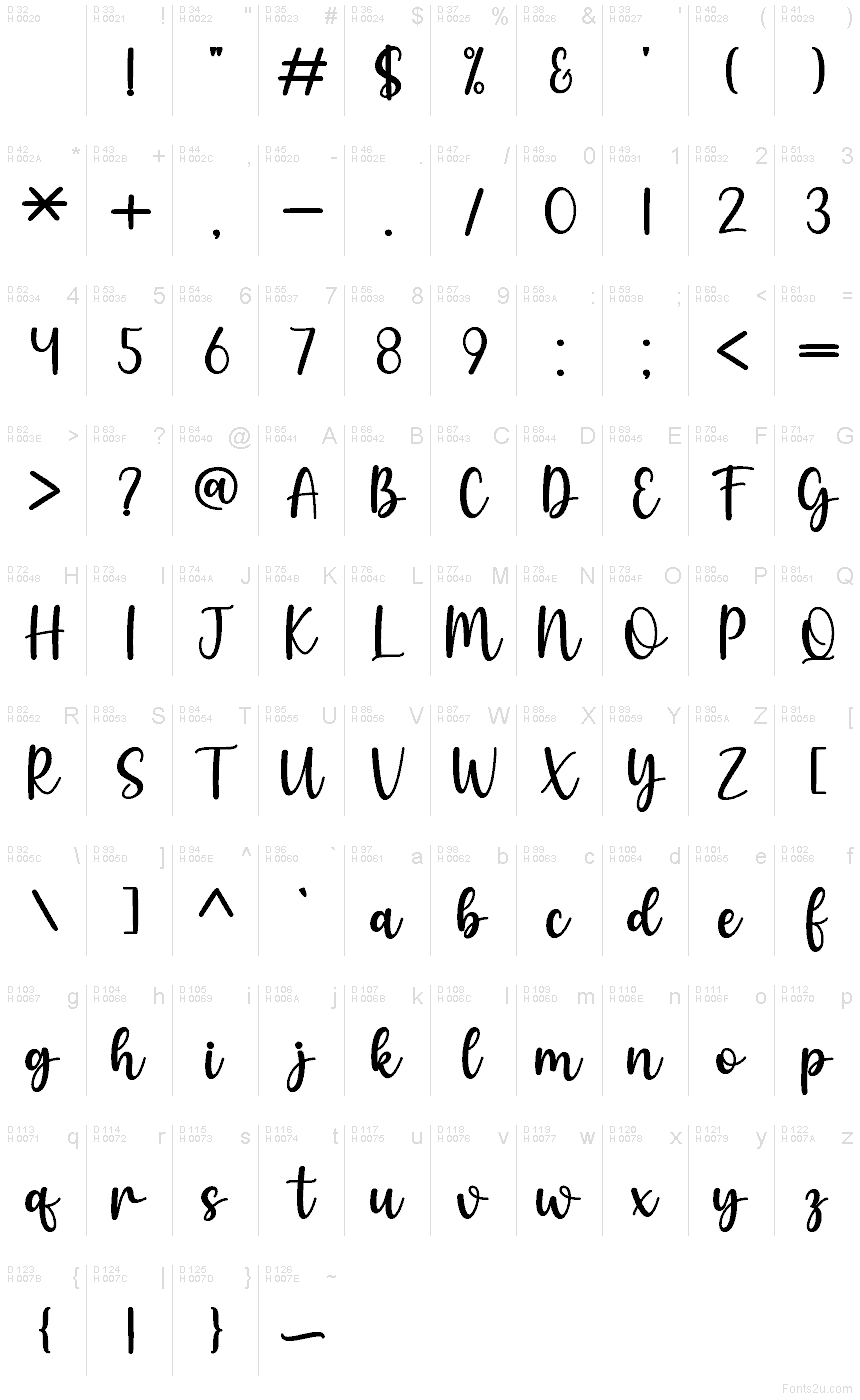
Dreaming
Dreaming font, designed by DN Creative, is a free handwritten font with an elegant, casual style. It has a modern appeal with an approachable vibe and a personal touch. The font's natural flow lends it the authenticity seen in similar handwritten styles.
Use Dreaming in book covers, branding projects, animated movie titles, web design templates, or typography posters. Create magazine layouts and album covers; add it to app designs and social media posts as well!